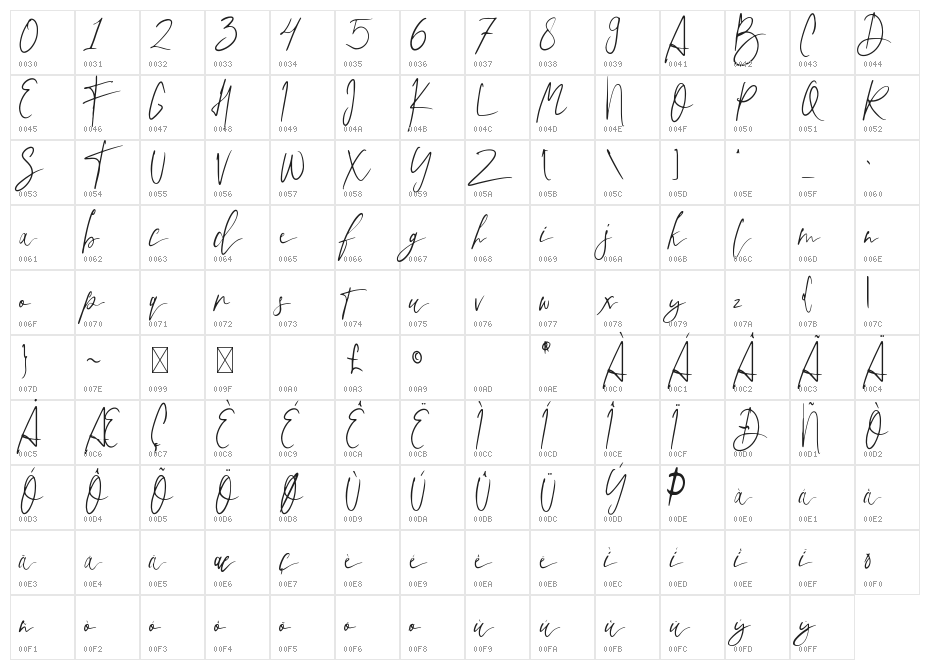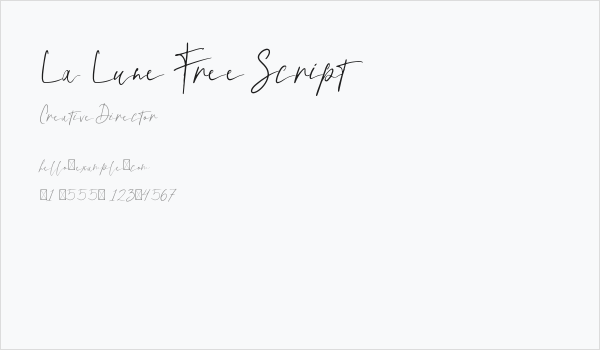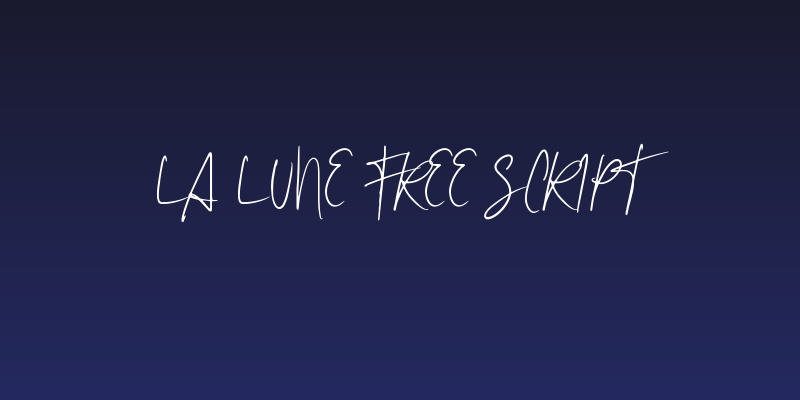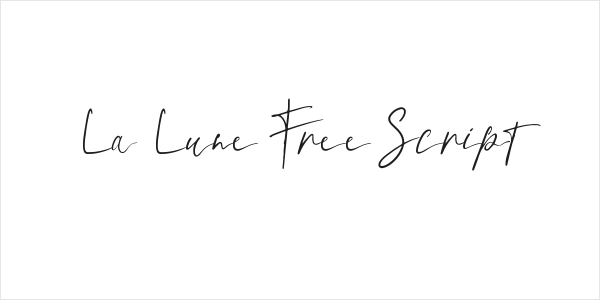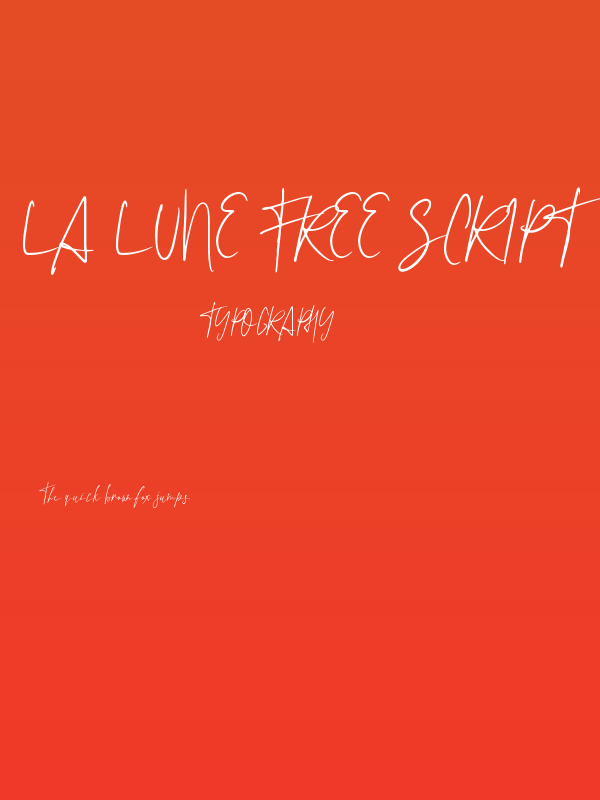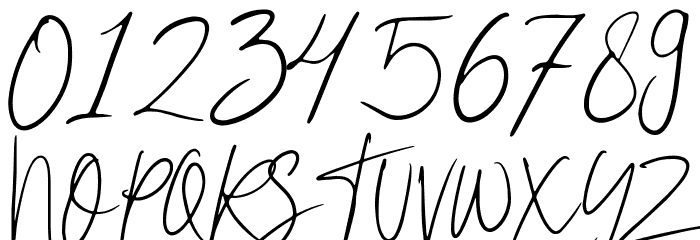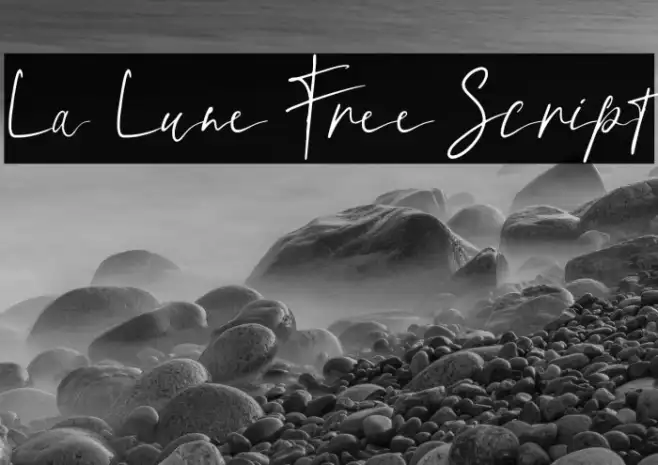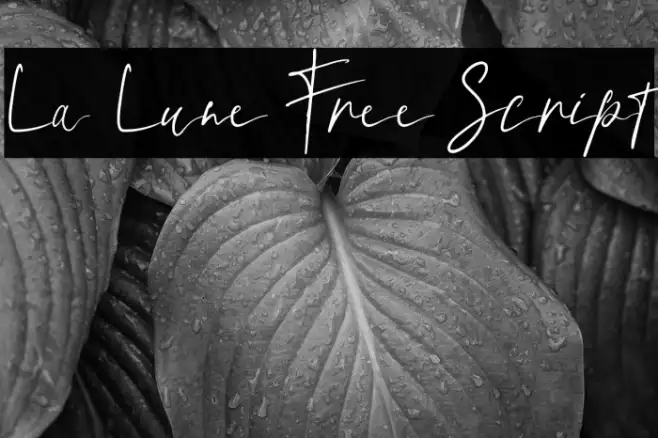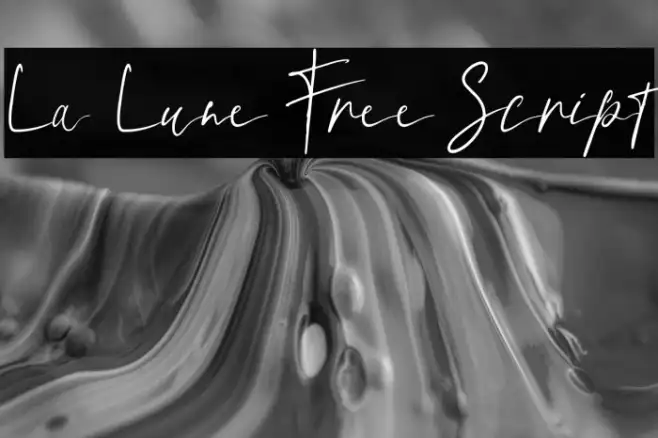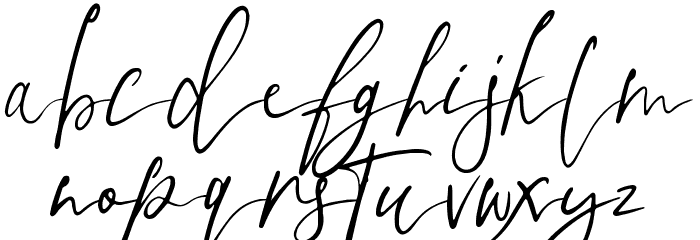
La Lune Free Script Font
La Lune Free Script Description
This font exudes a casual, handwritten style with a modern flair. The letters are fluid and connected, giving it a natural, flowing appearance. The uppercase letters are bold and expressive, while the lowercase letters maintain a consistent, elegant script. Numbers and special characters follow the same handwritten aesthetic, ensuring uniformity across all characters. The strokes are thin, with a slight variation in thickness that adds to the handwritten feel without compromising readability. This font is perfect for projects that require a personal touch, such as invitations, greeting cards, or branding materials.
| Proposed Projects | Ideal for invitations, greeting cards, personal branding, and creative projects. |